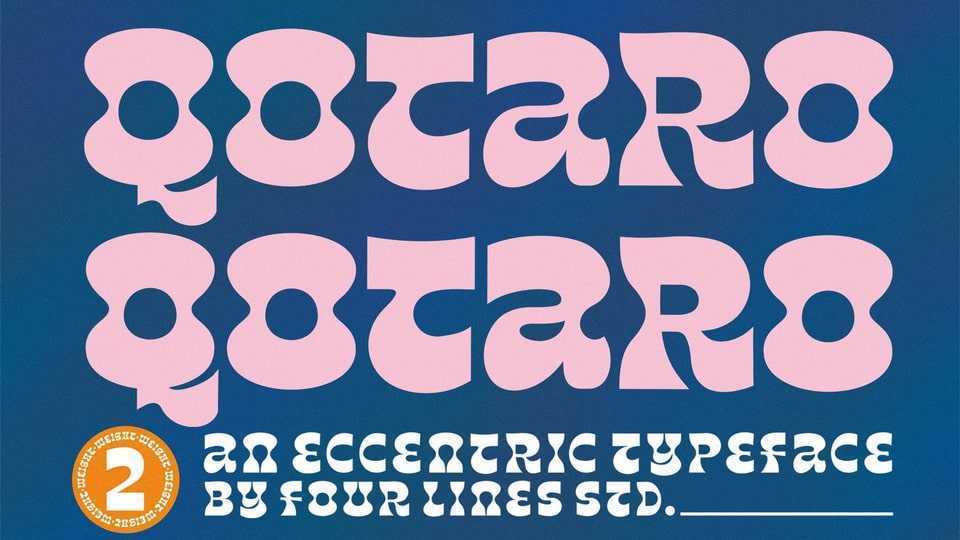
Download Qotaro font, a creative display typeface that transcends trends and borders. Its charm is universal, making it a font that resonates with audiences around the world.
Designer: Fourlines Design